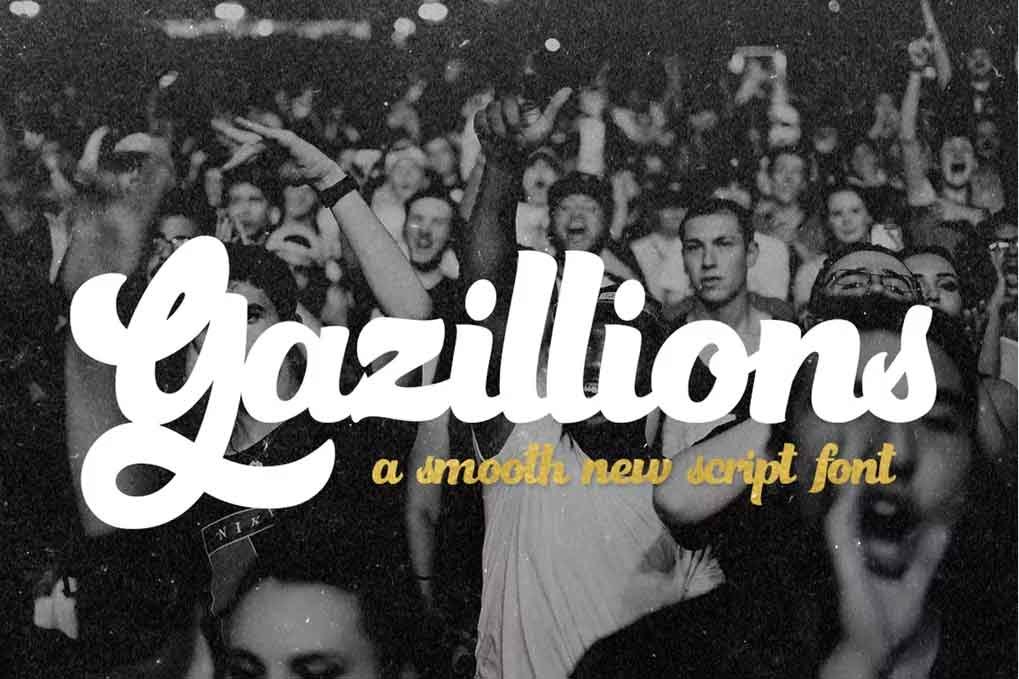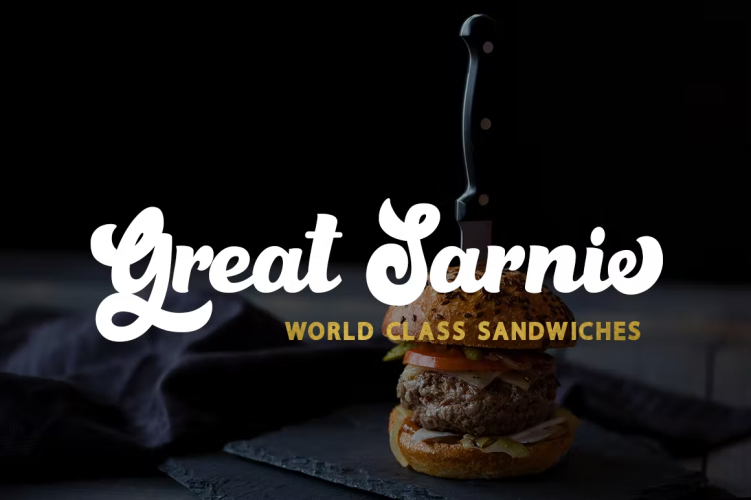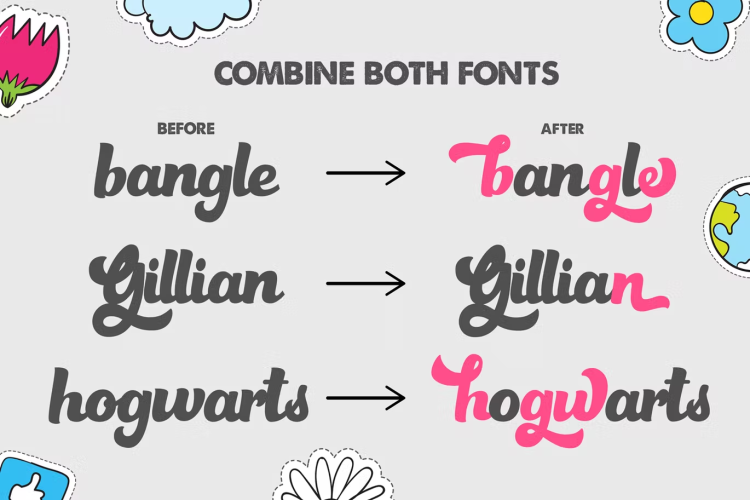
Gazillions Script Font Duo
Gazillion Script is here! A wonderful new font duo with lots of extras and swirly characters that can enhance your designs and make them a gazillion times better (Sorry..!) Combine the two fonts (Script and Fancy) to create unique styles and then let them loose on your latest project! Enjoy!
Gazillions Script Font Duo is a Script And Handwritten font that brings a professional and versatile look to your projects. Gazillion Script is here! A wonderful new font duo with lots of extras and swirly characters that can enhance your designs and make them a gazillion times better (Sorry.